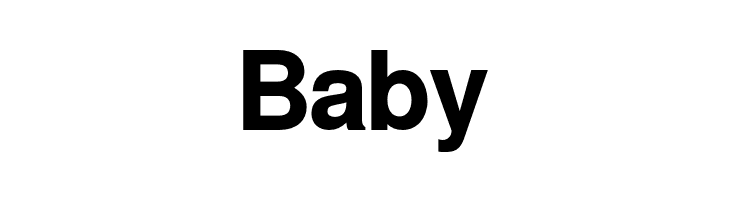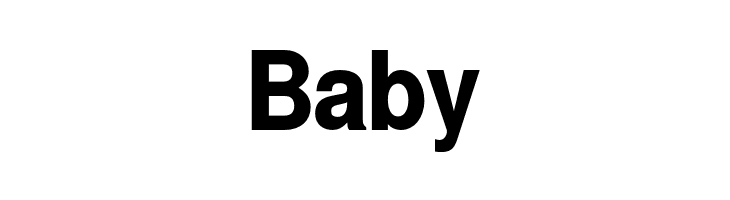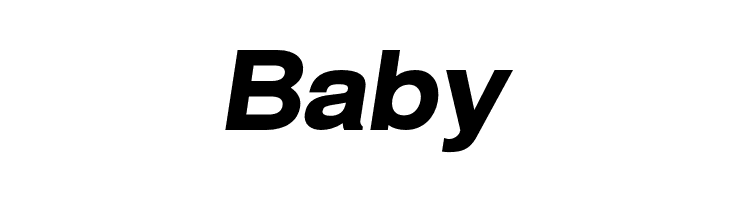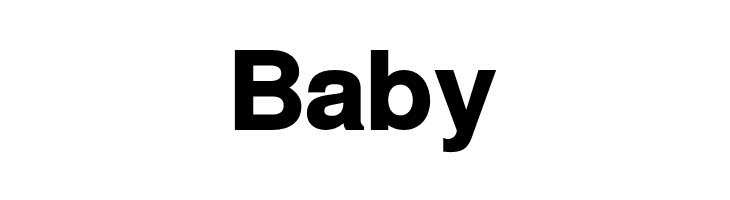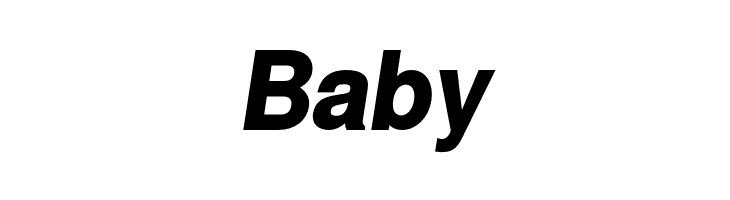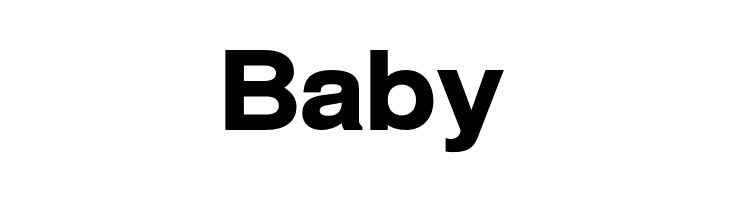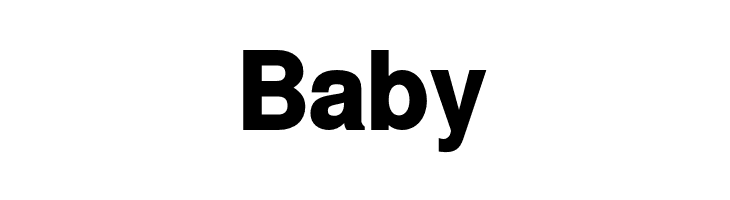
A bold, modern sans-serif font with strong, clean lines and uniform strokes.
A bold, extended font with thick strokes and a modern style.
A bold, extended, and oblique font with a modern and dynamic style.
A bold, narrow typeface with strong, uniform strokes for impactful design.
Bold, narrow, and oblique font with high contrast and tight spacing.
A bold, oblique font with a dynamic and energetic style.
A bold, modern typeface with thick, uniform strokes and clean lines.
A bold, extended typeface ideal for impactful headlines and display use.
A bold, extended, and oblique font with a modern and dynamic style.
A bold, narrow typeface with strong lines and a modern aesthetic.